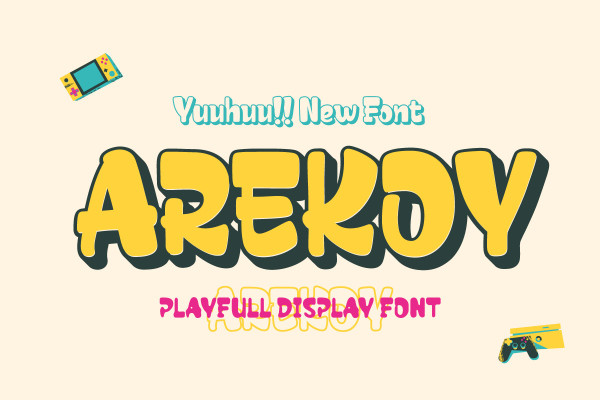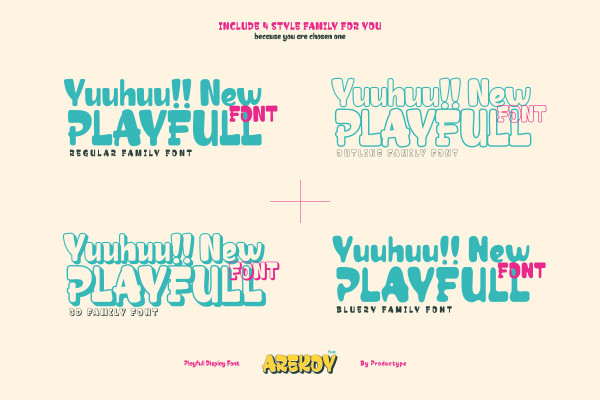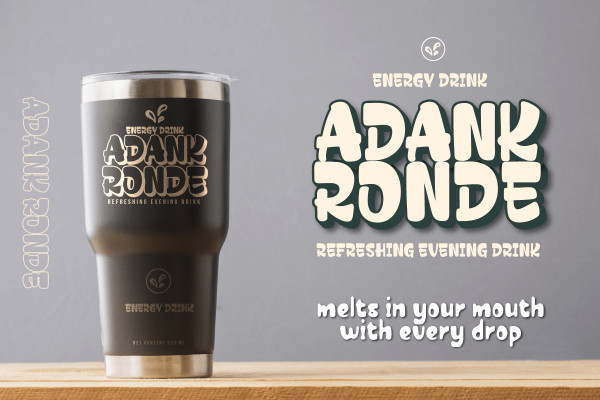
Arekoy Display Font
Arekoy Display Font a Playful Game-Inspired Display Font. Arekoy Display is the perfect solution for various projects that require a strong theme and a bold style. With its striking characteristics, this font ensures your message stands out in movies, games, product titles, or any grand event.